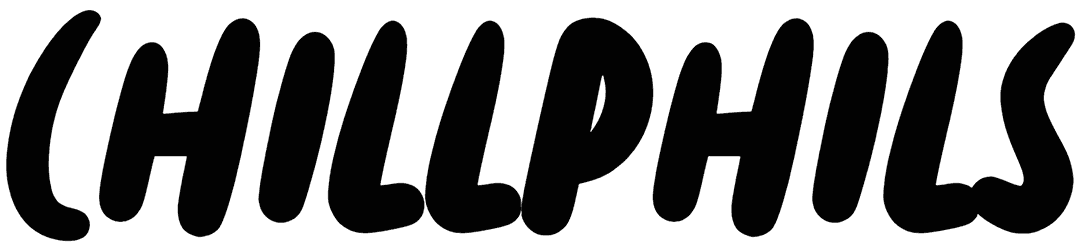
Chillphils Font
A script font such as Chillphils can tell the audience to anticipate high-end illustrations, gift cards, invitations, or social media posts, so this all-caps handwritten font can engage them with your work at first glance. Its curved and rounded characters bring a vibe of playfulness, courage, or dynamism to your visual content and make up for the lack of numbers.